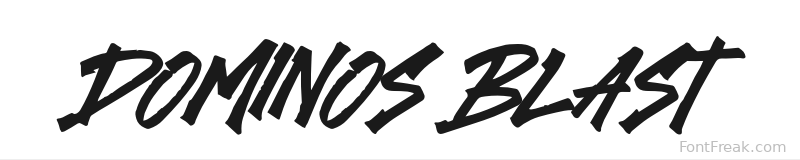
Dominos Blast
Dominos Blast is a striking display font designed by Syaf Rizal, showcasing a unique blend of boldness and artistic flair. As a decorative typeface, it stands out with its dynamic strokes and lively character, making it perfect for projects that demand attention. The font features a bold stroke weight combined with a playful, irregular structure that evokes a sense of energy and excitement. The high contrast in its letterforms, along with the slightly varied spacing, gives it a vibrant personality, making it a great choice for various creative applications.
This font is particularly well-suited for use cases such as movie posters, where its dramatic style can effectively capture the essence of a film. It also shines in promotional materials for events like music festivals or art shows, where its energetic vibe can resonate with audiences. Additionally, Dominos Blast is an excellent choice for restaurant menus and branding, as it adds a creative touch that can enhance the dining experience. Small business owners looking to make a memorable impression on their customers will find this font a valuable asset for their branding efforts.
Targeted towards graphic designers, content creators, and anyone in need of a bold typeface, Dominos Blast is versatile enough to cater to a variety of projects. Its unique visual style sets it apart from more conventional fonts, making it an excellent choice for those wishing to convey a sense of creativity and modernity.